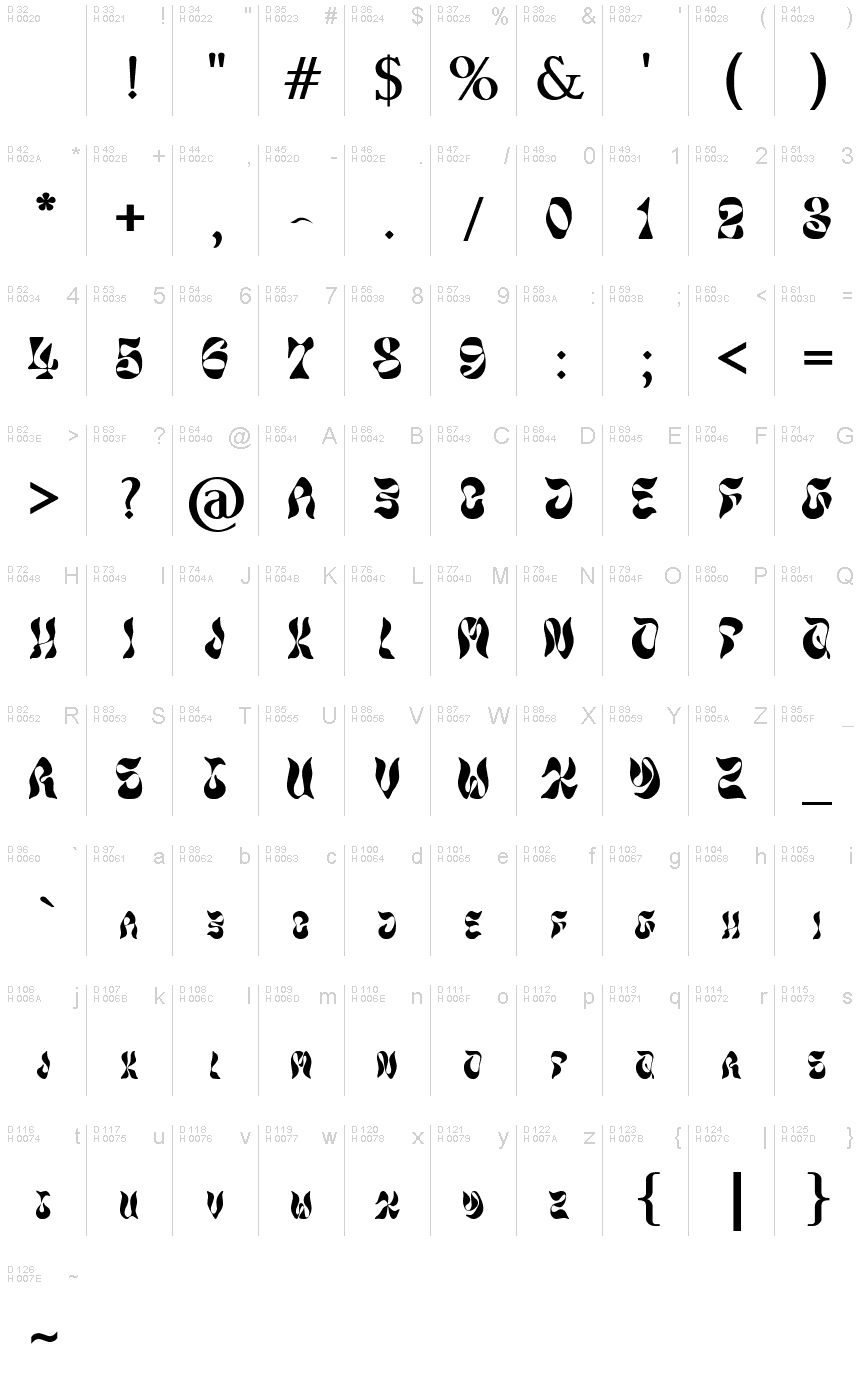
GEOL Bold
GEOL Bold is a bold, narrow display font designed by Azmi Naufal. Its groovy style makes it perfect for projects that need an eye-catching and creative touch, such as posters, logos and signs.